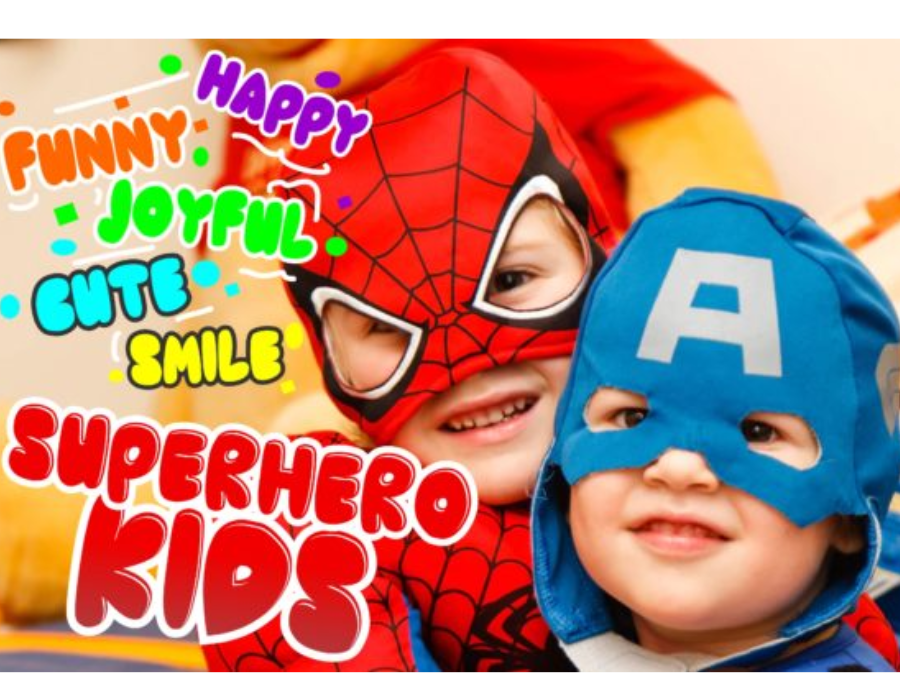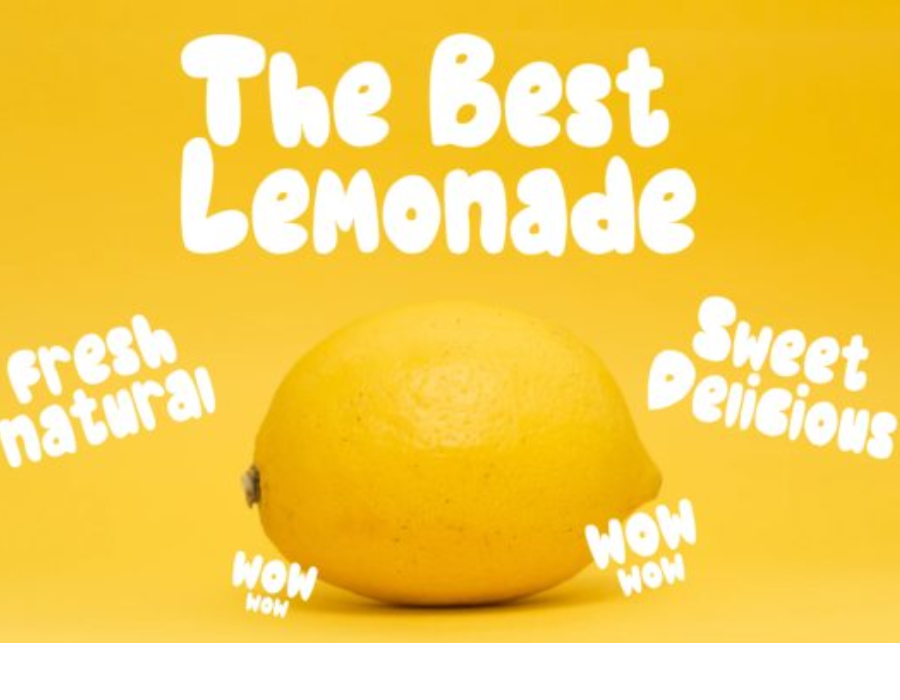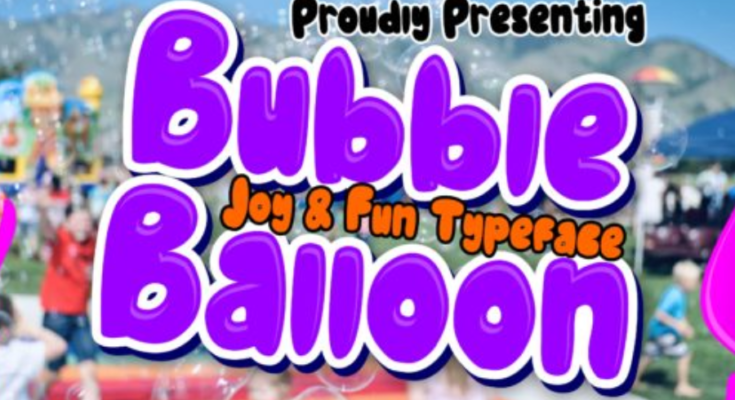
Bubble Balloon Font: Inflated Creativity for Playful Design Projects
Introduction
Typography is a design language all on its own. Fonts have the ability to influence mood, create a sense of identity, and leave lasting impressions long before a single sentence is read. While some typefaces are formal, structured, and serious, others are crafted to communicate fun, imagination, and lightheartedness. The Bubble Balloon Font belongs firmly in the second category. With its rounded, inflated letterforms that resemble cheerful balloons, this typeface is perfect for projects that need to radiate positivity, joy, and creativity.
Design Characteristics
The Bubble Balloon Font is instantly recognizable thanks to its plump, rounded shapes that mimic the buoyant look of balloons. Each letter feels inflated, as if it could float off the page. This playful effect is achieved through thick strokes, smooth curves, and generous spacing between characters.
Unlike rigid or geometric fonts, Bubble Balloon carries a sense of movement and energy. It appears friendly, approachable, and celebratory. The font often comes in uppercase and lowercase alphabets, numerals, punctuation marks, and sometimes stylistic alternates, giving designers plenty of room for experimentation.
Another defining feature is its handcrafted appearance. Many versions of the font have subtle imperfections or irregularities, which add charm and authenticity. These details prevent the design from feeling overly mechanical and instead give it a personal, handmade quality that resonates with youthful audiences.
Emotional Tone and Appeal
The emotional impact of the Bubble Balloon Font is its strongest asset. It conveys joy, excitement, and playfulness at first glance. The inflated letterforms are reminiscent of birthday balloons, party decorations, and childhood celebrations, instantly evoking happy memories and feelings of nostalgia.
This makes the font highly suitable for projects that want to connect with audiences on an emotional level. It communicates approachability and warmth, making designs feel welcoming rather than intimidating. When used in branding or packaging, it can help products appear family-friendly, fun-loving, and creative.
Applications and Versatility
Despite its whimsical design, Bubble Balloon is surprisingly versatile. It can be applied to a wide range of design projects where fun and creativity are the focus:
Children’s Books – Perfect for titles, headings, and playful text elements that capture young readers’ attention.
Event Invitations – A natural fit for birthdays, baby showers, school fairs, or festive celebrations.
Product Packaging – Works wonderfully for toys, snacks, drinks, and other kid-friendly or lighthearted products.
Marketing and Advertising – Eye-catching on posters, banners, and digital ads where the goal is to stand out and radiate energy.
Digital Media – Ideal for social media graphics, YouTube thumbnails, and app designs that need a bright and cheerful personality.
Merchandise – Adds charm to t-shirts, mugs, stickers, and other products where bold, fun typography enhances appeal.
Its ability to instantly create a festive atmosphere makes it a reliable choice for projects across both print and digital platforms.
Strengths for Designers
Designers appreciate Bubble Balloon Font for several reasons:
Strong Visual Impact – Its bold, inflated letters ensure that designs capture attention immediately.
Easy Pairing – While it shines as a display font, it pairs well with simple sans-serif typefaces to create contrast and balance.
Friendly and Approachable – Its soft, rounded edges make it less formal and more engaging to audiences of all ages.
Creative Flexibility – With stylistic alternates, outline versions, and shadowed effects (available in some variations), designers can experiment with depth and layering.
Global Usability – Many versions support multiple languages, making the font suitable for international projects.
Best Practices
While Bubble Balloon is playful and bold, it should be used thoughtfully:
Avoid Small Sizes – Its inflated shapes can reduce readability in body text, so it’s best reserved for headlines and decorative purposes.
Use Strong Contrast – Pair with backgrounds that highlight its bold forms. Bright colors, gradients, or simple solids work especially well.
Match the Tone – The font is perfect for playful, festive designs but may not suit serious or professional projects unless used sparingly.
By applying these best practices, designers can maximize its strengths without overwhelming their layouts.
Conclusion
The Bubble Balloon Font is more than just a typeface—it is an expression of fun, joy, and creativity. Its rounded, inflated letters transform ordinary text into playful works of art, making it ideal for children’s projects, festive invitations, packaging, and digital content. With its bold presence, emotional warmth, and creative versatility, this font captures the imagination and sparks a sense of celebration wherever it is used.
For designers who want to inject energy and personality into their work, Bubble Balloon is not just a font—it’s a design tool that turns words into a party of their own.